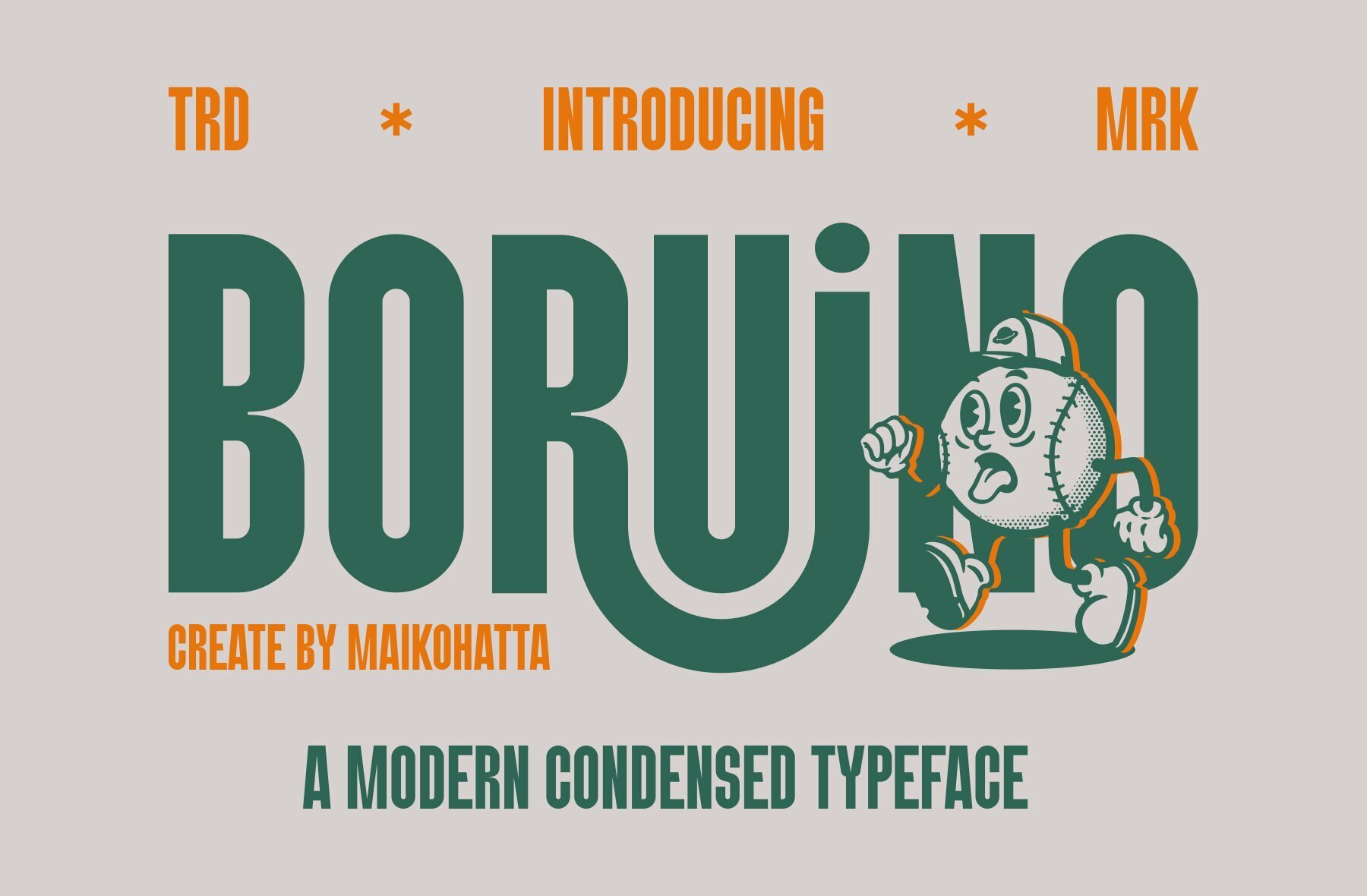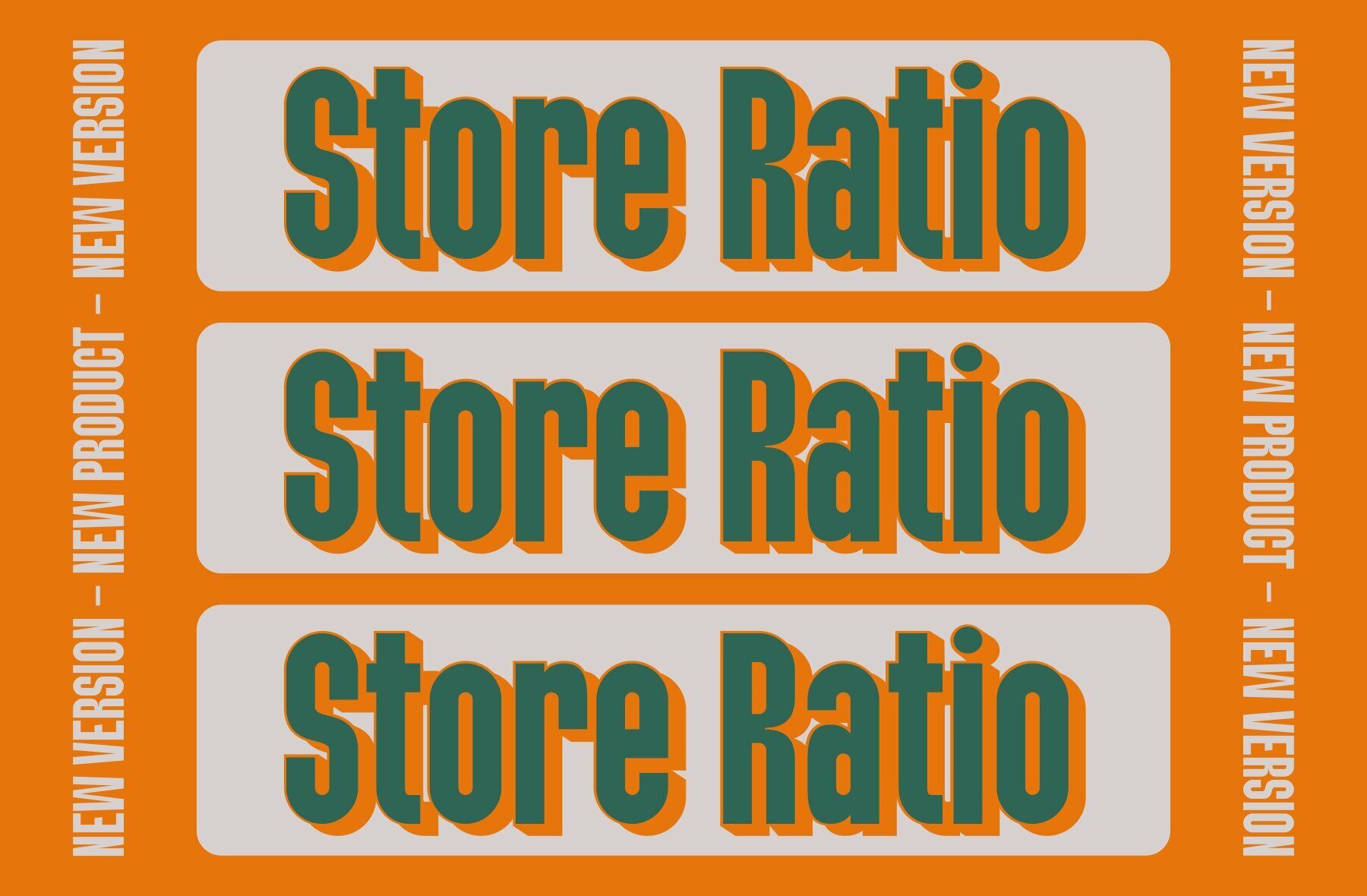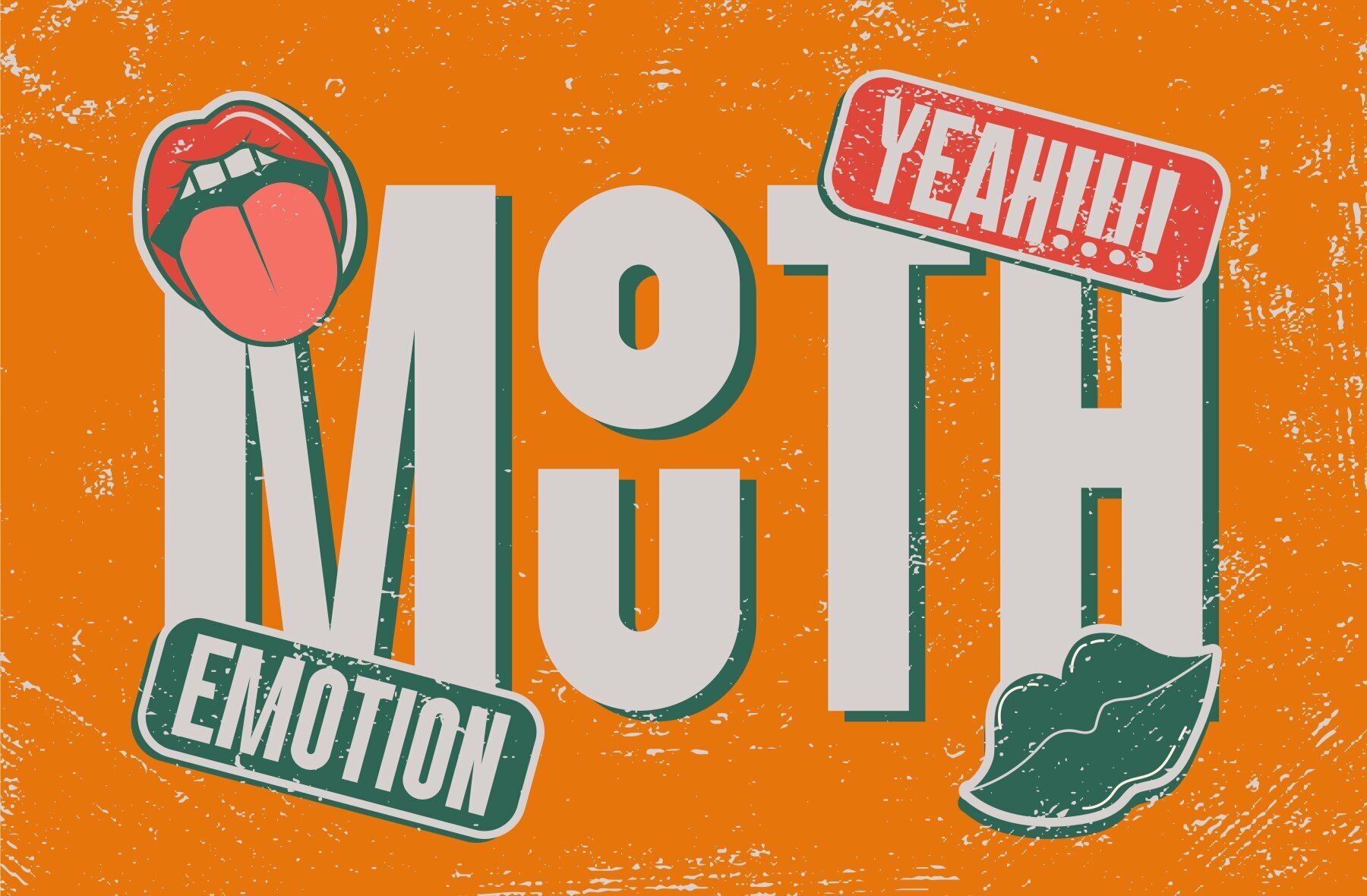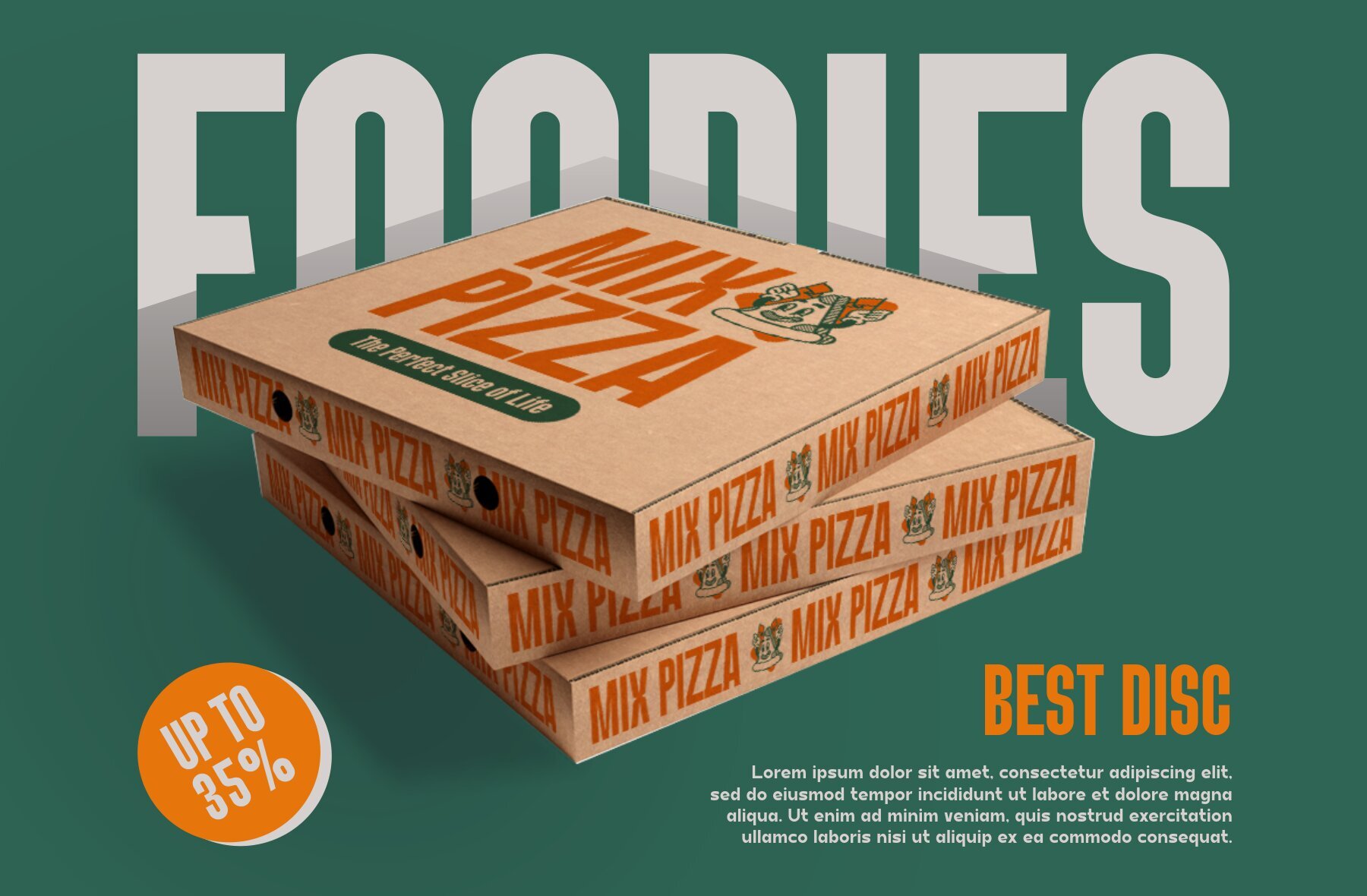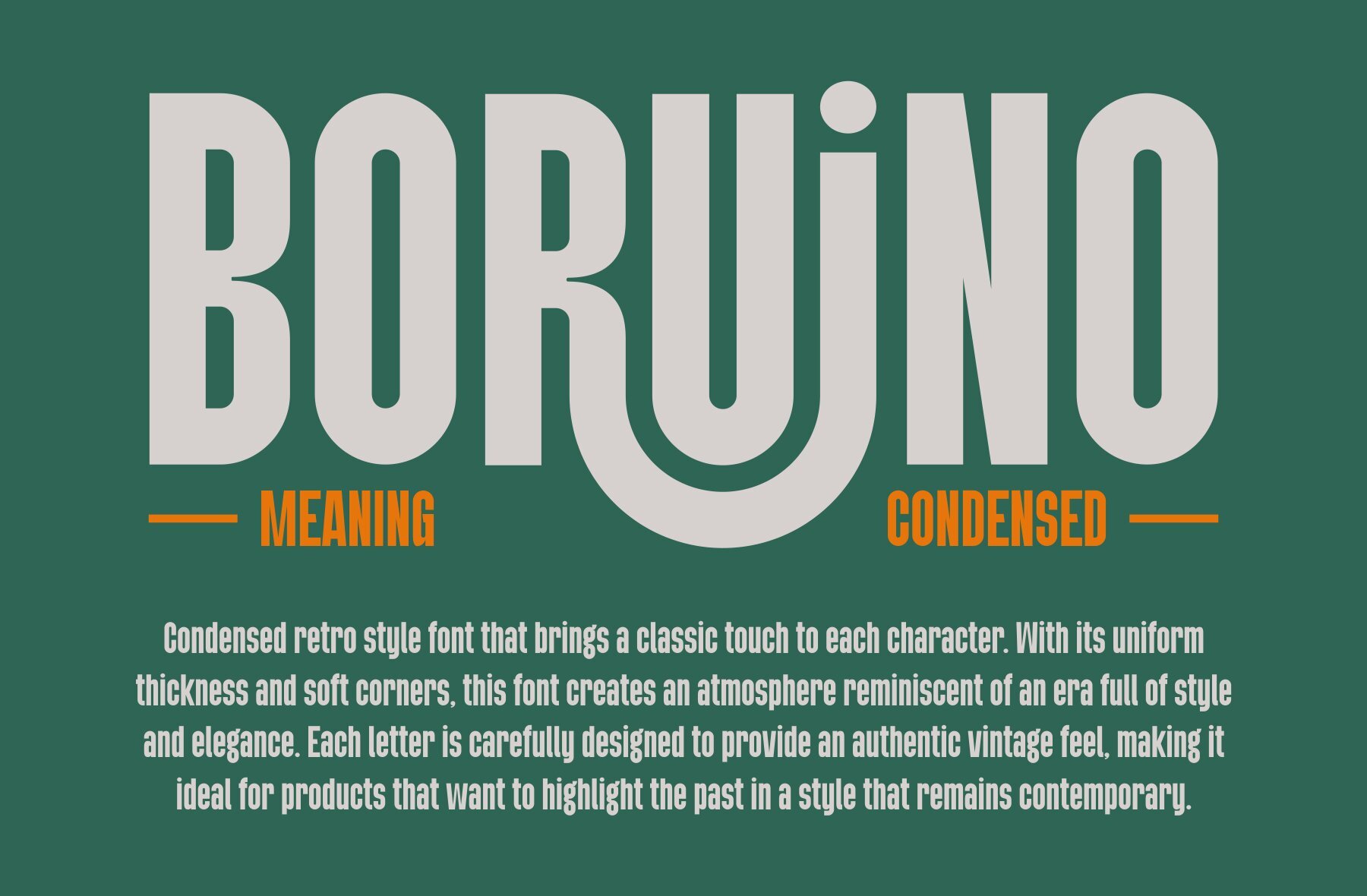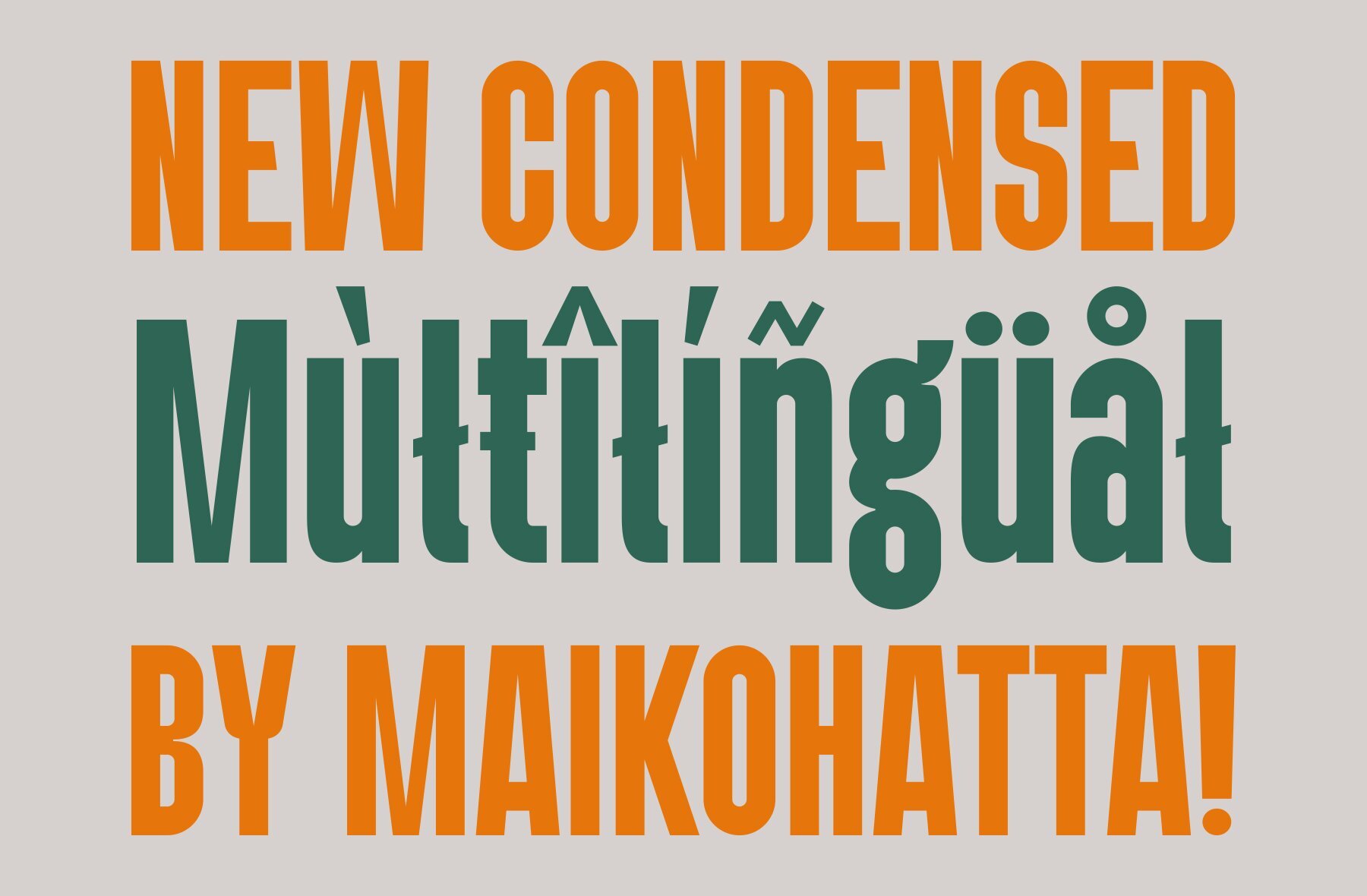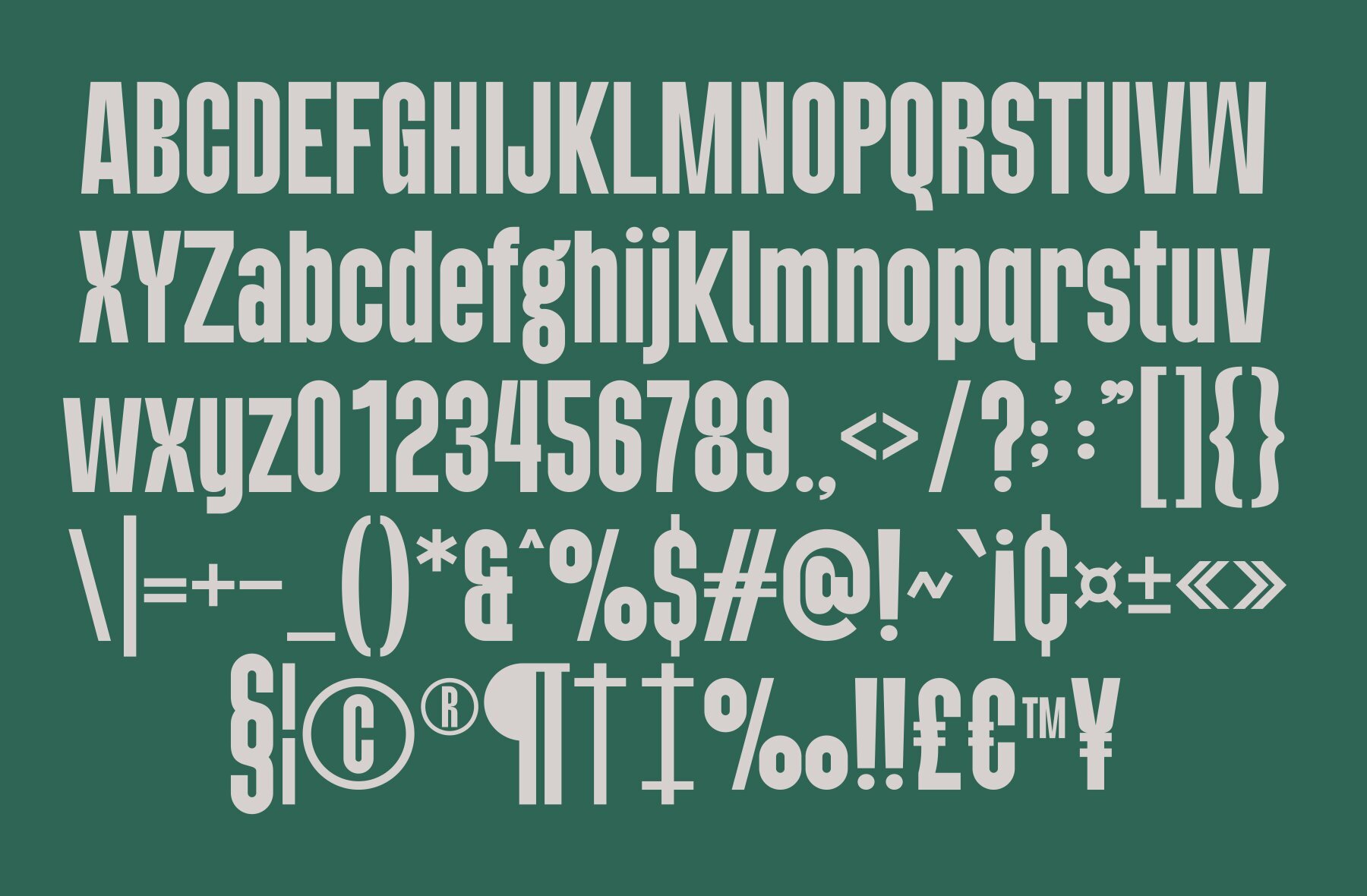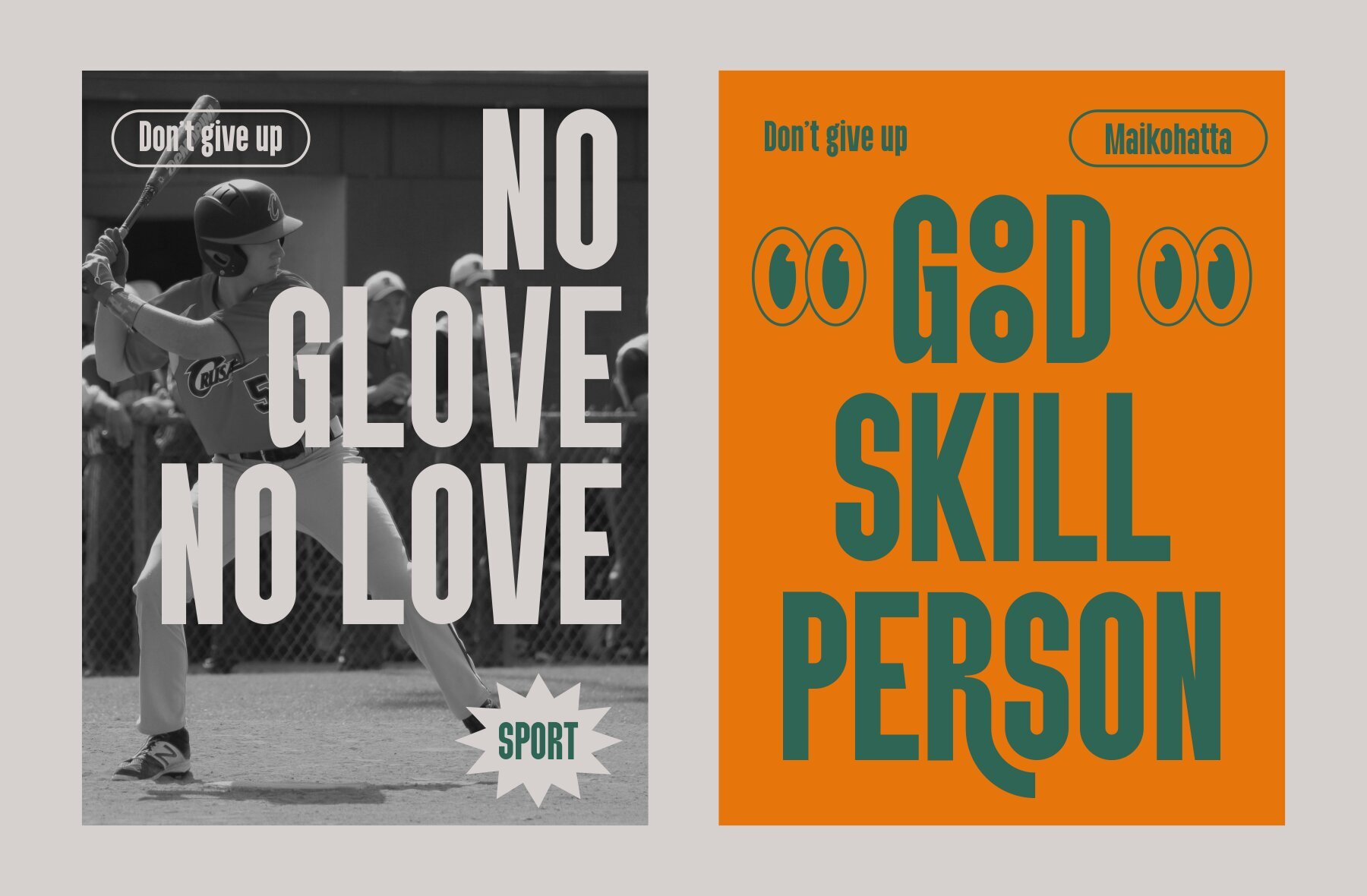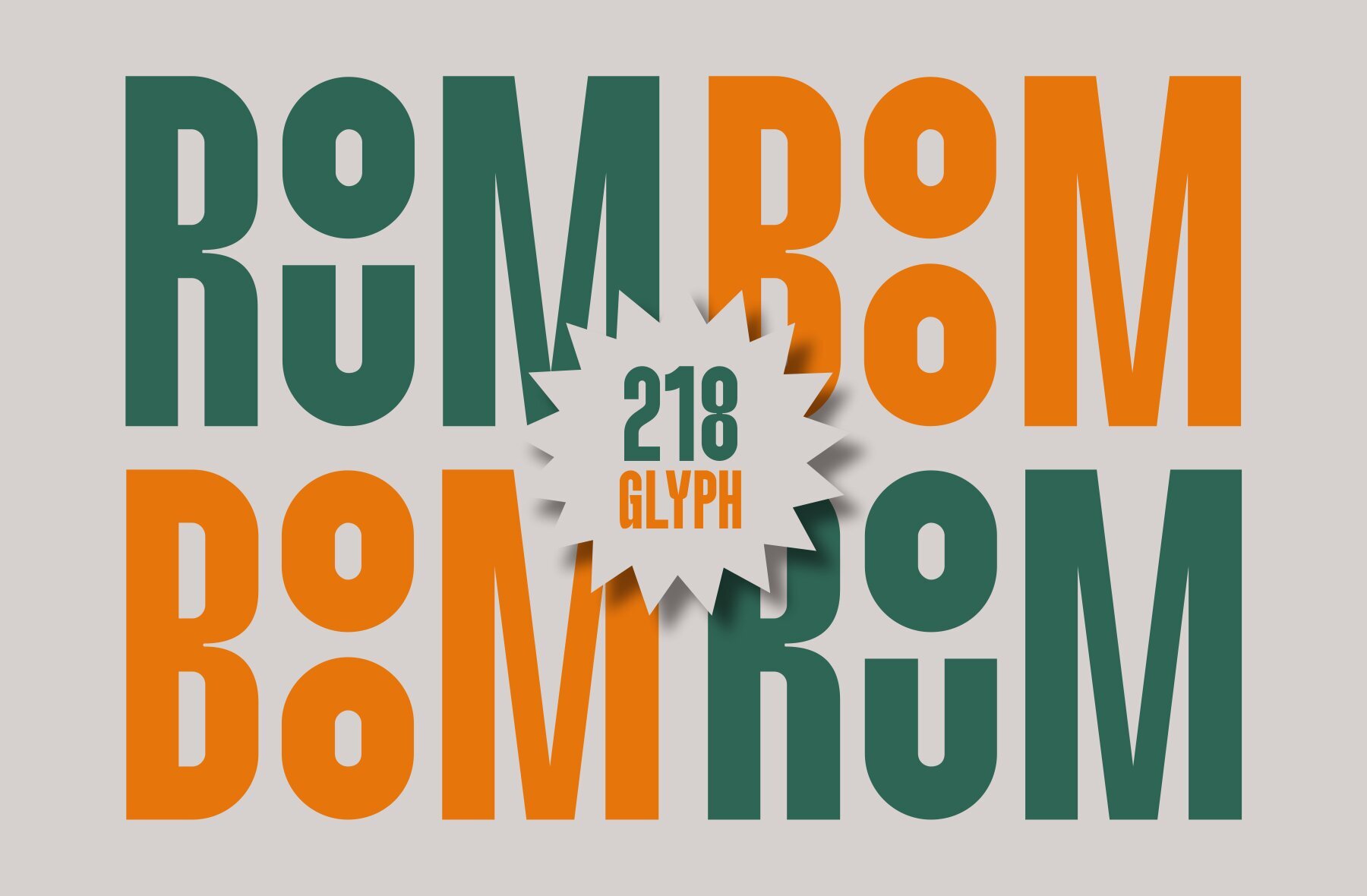
Boruino Font
Boruino Regular
Boruino features sleek, narrow letterforms ideal for contemporary graphic designs and print materials. This font provides uppercase, lowercase, multilingual support, alternates, and ligatures. Perfect for distinct and stylish typography projects.